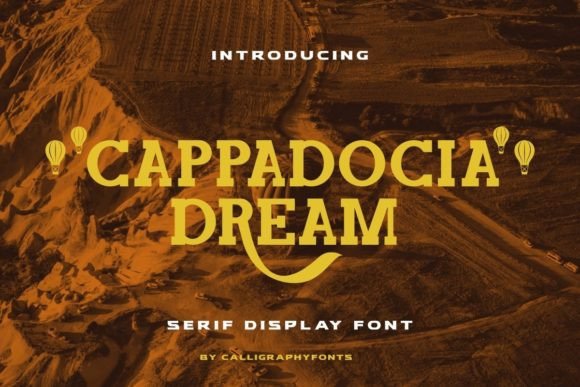
Cappadocia Dream: A Stylish Font for Captivating Designs
Fonts play a crucial role in how we communicate visually. Whether you're designing a logo, creating social media content, or crafting an elegant website, the right typeface can elevate your project from ordinary to extraordinary. One such font that has caught the attention of designers and creatives is Cappadocia Dream. Inspired by the breathtaking landscapes of Cappadocia in Turkey, this serif display font combines charm, elegance, and modern flair to deliver a versatile typographic solution.
What Is Cappadocia Dream?
Cappadocia Dream is a beautifully crafted serif font designed with both aesthetics and functionality in mind. Its name draws inspiration from the unique rock formations and fairy-tale scenery of the Cappadocia region, known for its whimsical hot air balloon rides and ancient cave dwellings. Just like the landscape it's named after, this font offers a sense of wonder and enchantment through its design.
The font features a classic serif structure with subtle, trendy alternates that add character without compromising readability. These details make it ideal for a range of applications where style meets clarity—especially in branding, editorial work, and digital marketing materials.
Key Features and Characteristics
- Elegant Serif Design: The clean, flowing lines and refined serifs give Cappadocia Dream a timeless look that works well in both print and digital formats.
- Trendy Alternates: With alternate glyphs and ligatures available via PUA encoding, users can customize their text for added visual appeal.
- PUA Encoding Support: This ensures easy access to special characters, symbols, and stylistic options, making the font user-friendly even for those who aren't familiar with advanced font features.
- High Readability: Despite its decorative elements, the font remains highly legible at various sizes, which is essential for professional use.
- Versatile Weight Options: Depending on the version, Cappadocia Dream may offer multiple weights and styles to suit different design needs.
Why Choose a Serif Display Font?
While sans-serif fonts dominate the digital world due to their simplicity and screen-friendliness, serif fonts like Cappadocia Dream bring a sense of sophistication and warmth. They are particularly effective in contexts where a more personal or traditional tone is desired. Display fonts are not meant for large blocks of text but shine when used as headlines, titles, or logos. Their bold presence makes them perfect for grabbing attention and setting the visual mood of a design.
Where Can You Use Cappadocia Dream?
The adaptability of Cappadocia Dream allows it to fit into numerous creative projects. Here are some popular use cases:
- Branding Materials: From business cards to packaging, the font adds a touch of class and originality.
- Wedding Invitations and Stationery: Its elegant and romantic feel makes it a great choice for events and celebrations.
- Editorial Design: In magazines, newspapers, and book covers, the font enhances the overall visual appeal while maintaining professionalism.
- Social Media Content: It helps create engaging posts that stand out in crowded feeds, especially when paired with minimalist backgrounds.
- Web Design: Used strategically in headers or call-to-action buttons, it contributes to a site’s personality and brand identity.
Who Benefits from Using Cappadocia Dream?
Professionals across several fields can benefit from using Cappadocia Dream, including:
- Graphic Designers: Those looking to add a unique yet readable font to their portfolio or client projects.
- Business Owners: Especially in industries like hospitality, fashion, or luxury goods, where visual branding is key.
- Content Creators: Bloggers, YouTubers, and Instagrammers who want to enhance their headings and captions with style.
- Marketing Teams: For campaigns that require a blend of creativity and professionalism in typography.
Strengths and Limitations of Cappadocia Dream
Every font has its strengths and limitations, and Cappadocia Dream is no exception. Understanding these can help you determine whether it's the right fit for your project.
Strengths
- Distinctive Style: The font stands out without being overly ornate, offering a balance between trendiness and timelessness.
- Customization Options: Thanks to PUA encoding, users can easily access special characters and ligatures, adding depth to their designs.
- Wide Compatibility: Works seamlessly across most design software and platforms, ensuring ease of use for professionals and hobbyists alike.
- Print and Digital Friendly: Designed to maintain quality whether printed on paper or displayed on a screen.
Considerations and Limitations
- Not Ideal for Long Text: As a display font, it's best suited for short texts rather than body copy. Using it for extended paragraphs may reduce readability.
Whether you're a designer looking to expand your toolkit or a business owner aiming to craft a memorable brand identity, evaluating the role of Cappadocia Dream in your next project could unlock new possibilities. Take the time to experiment, compare, and choose wisely—because the right font can make all the difference in how your message is perceived.